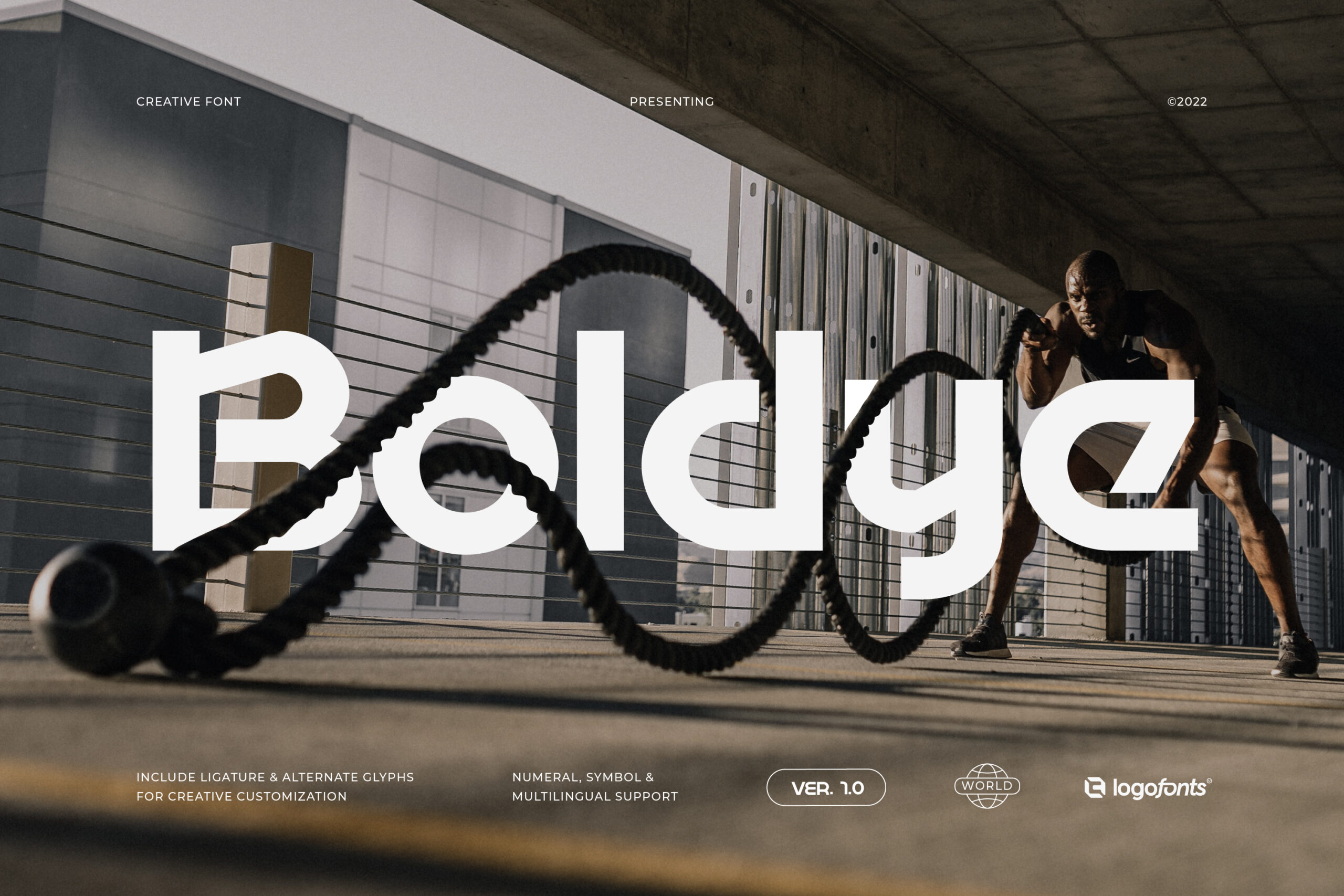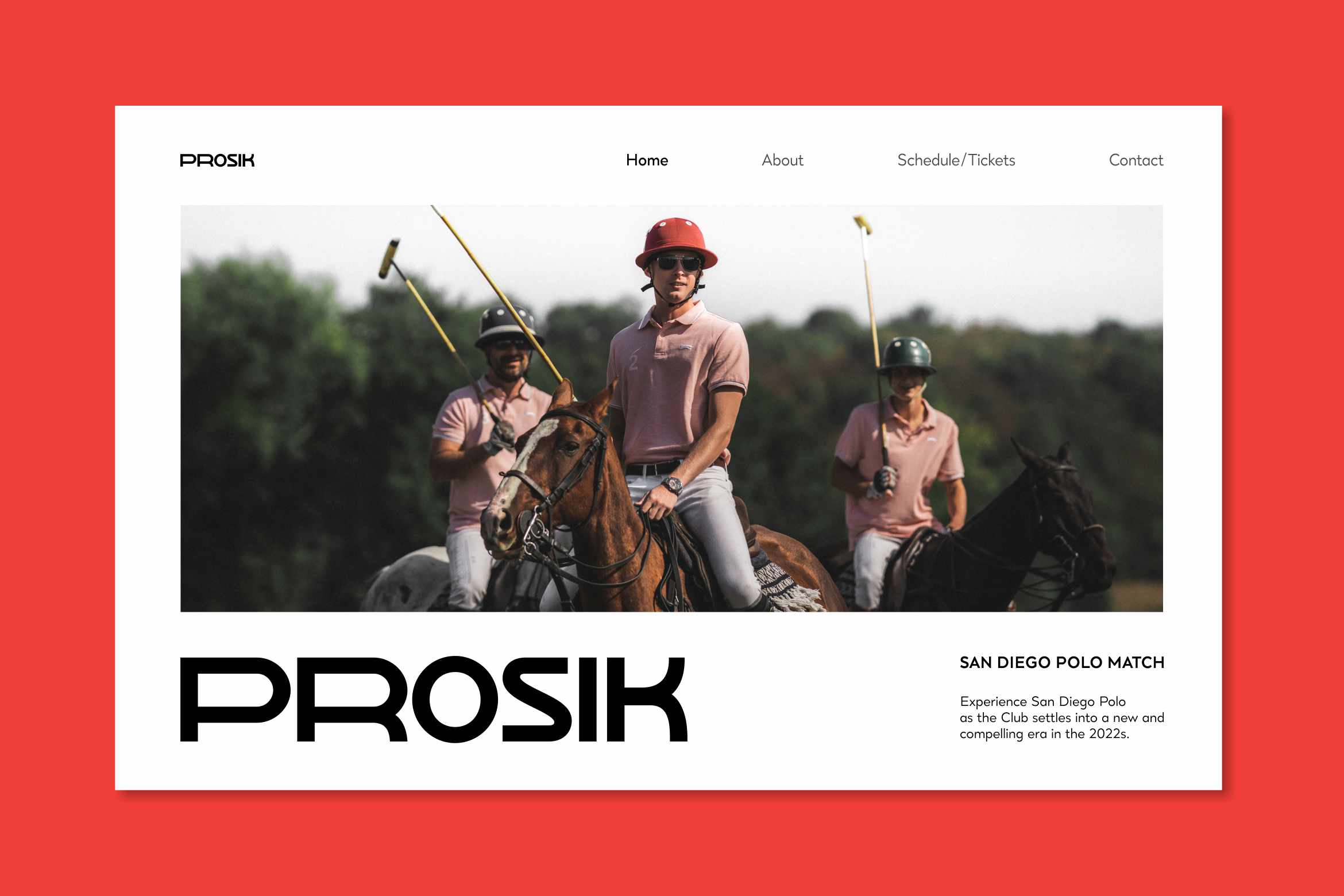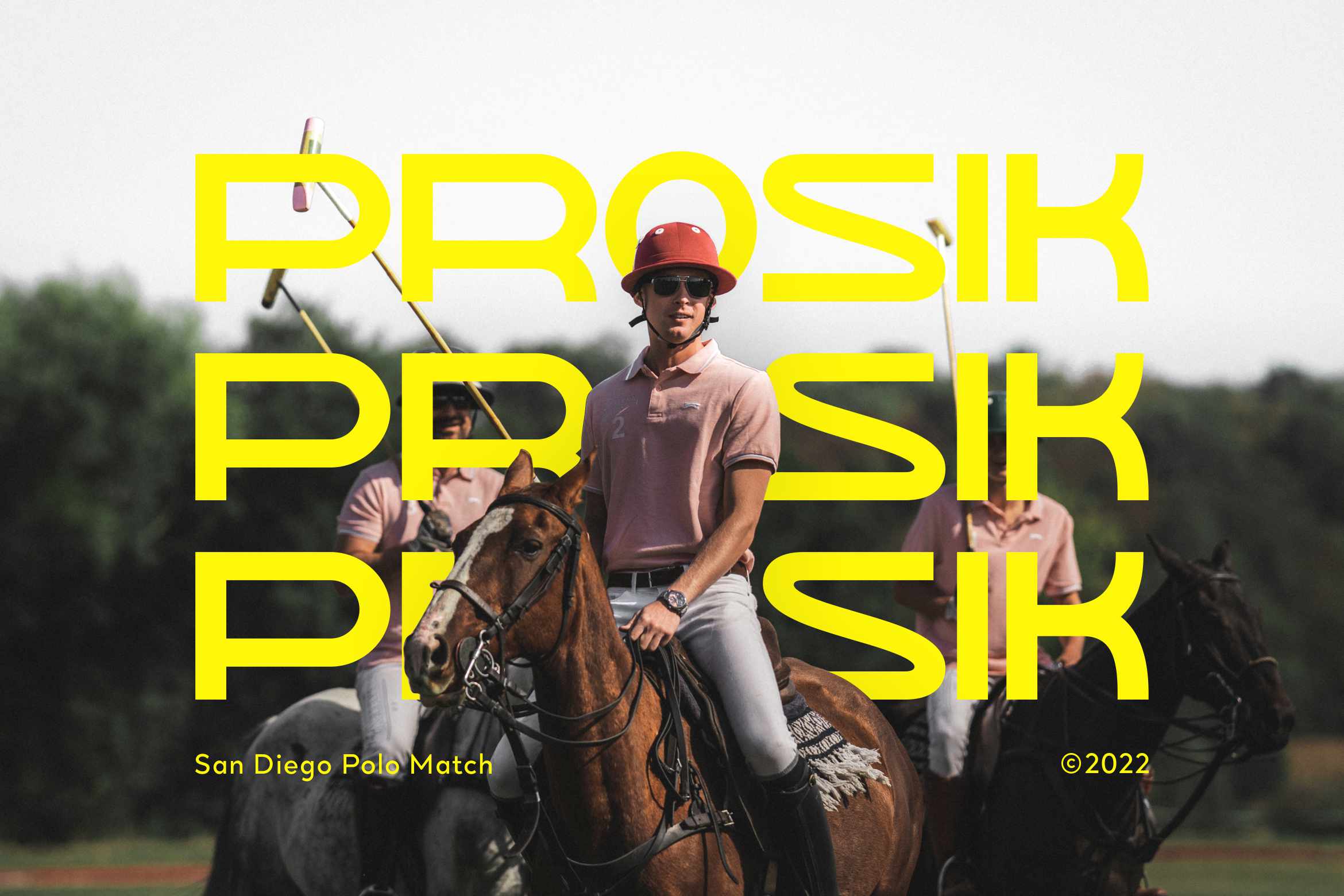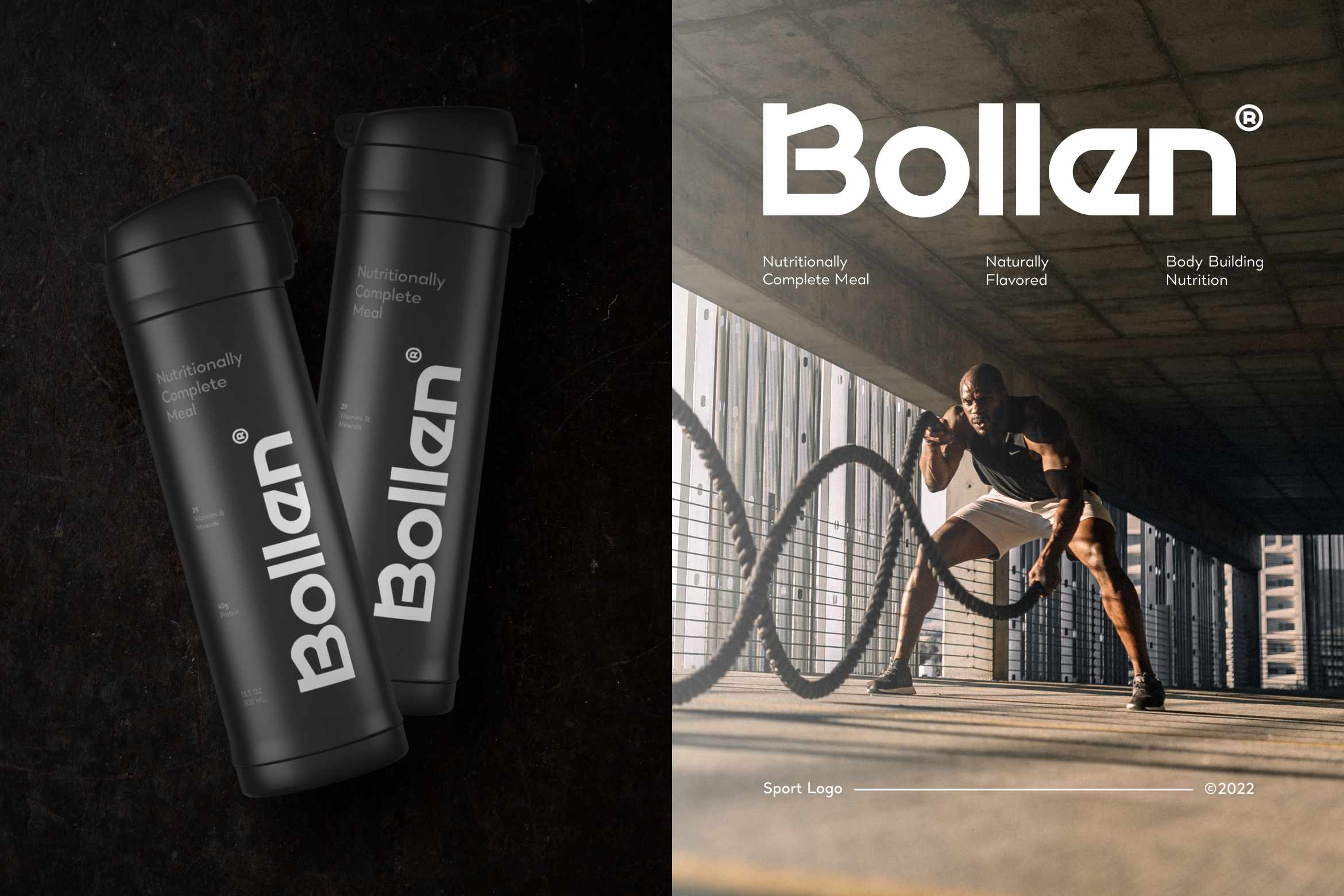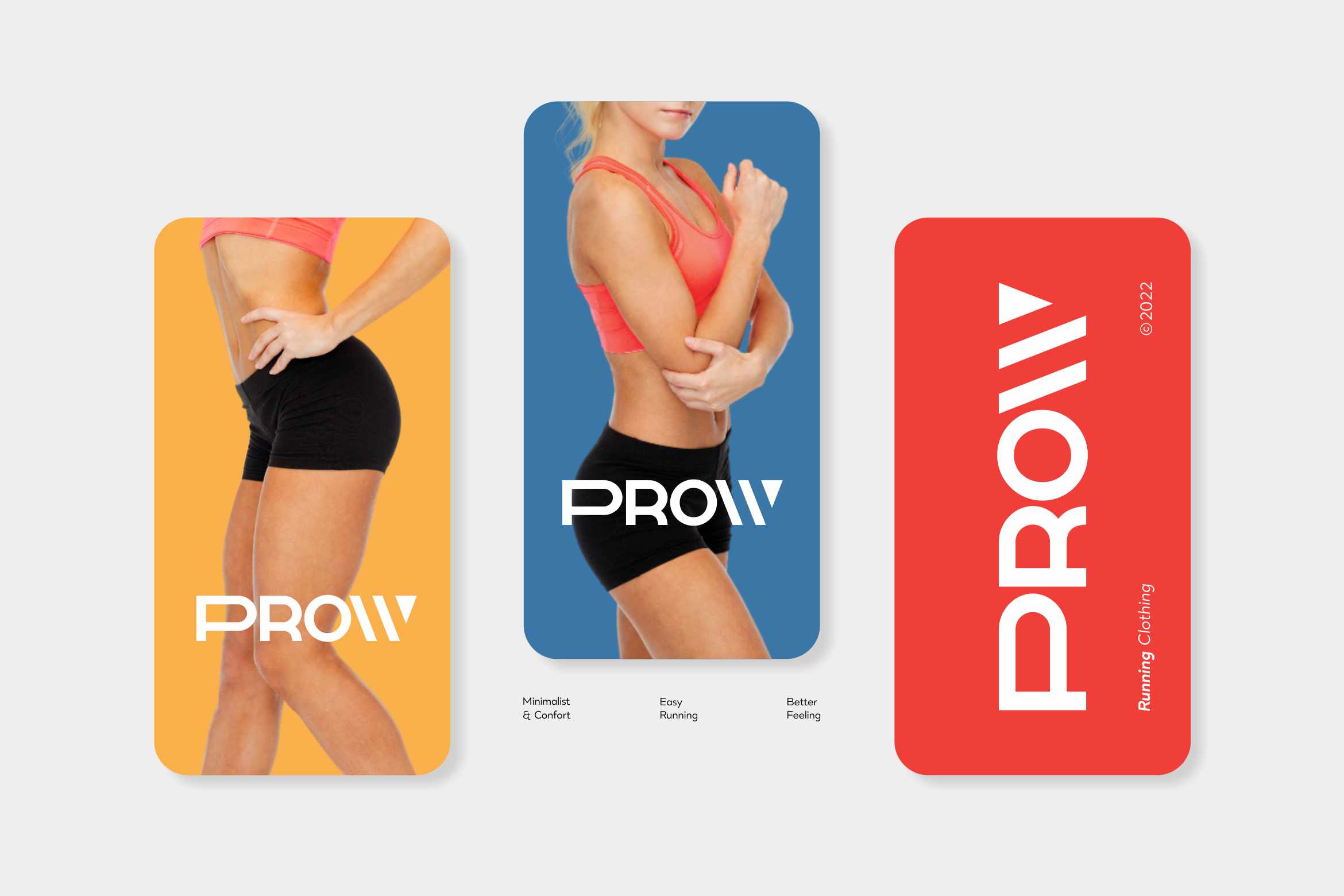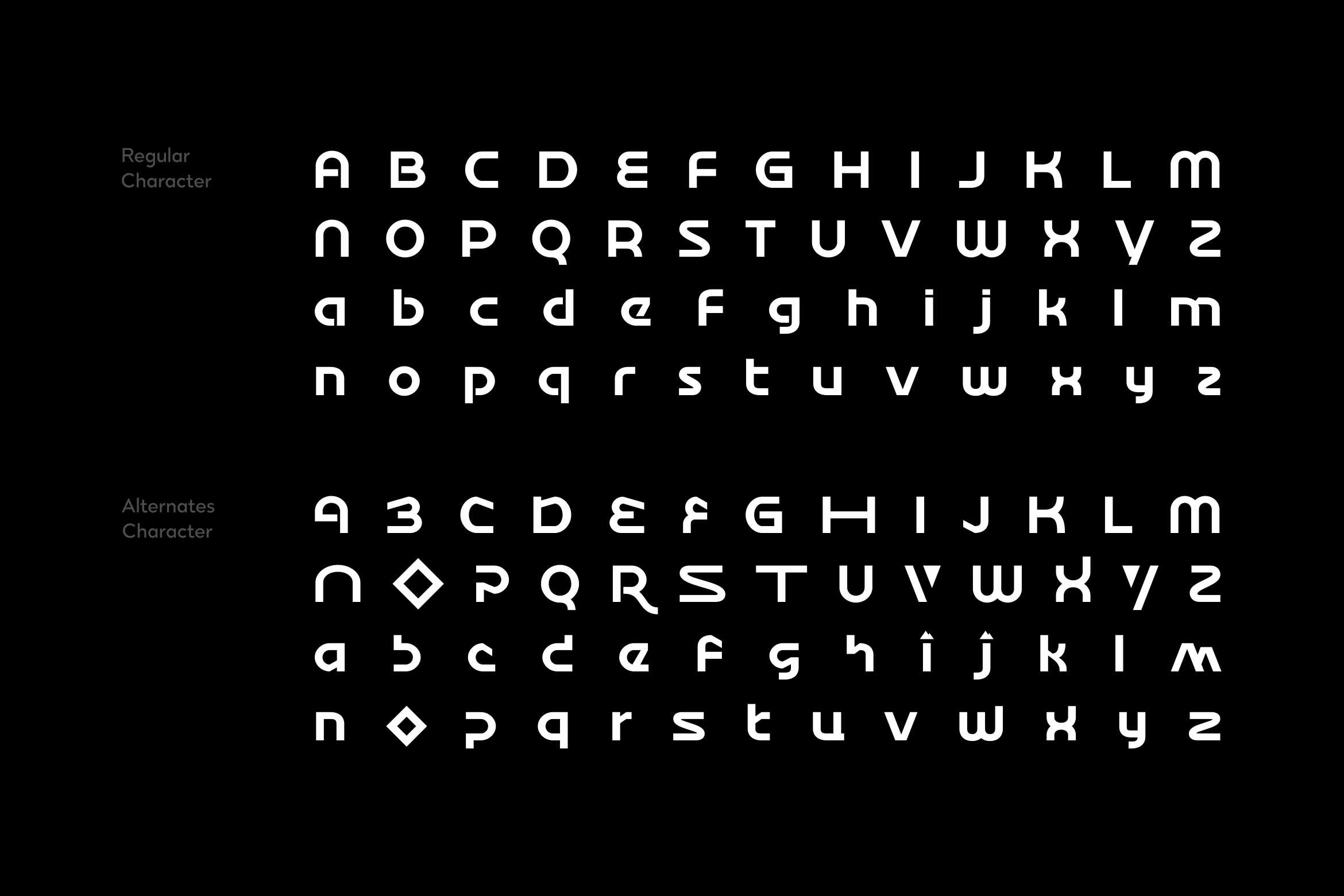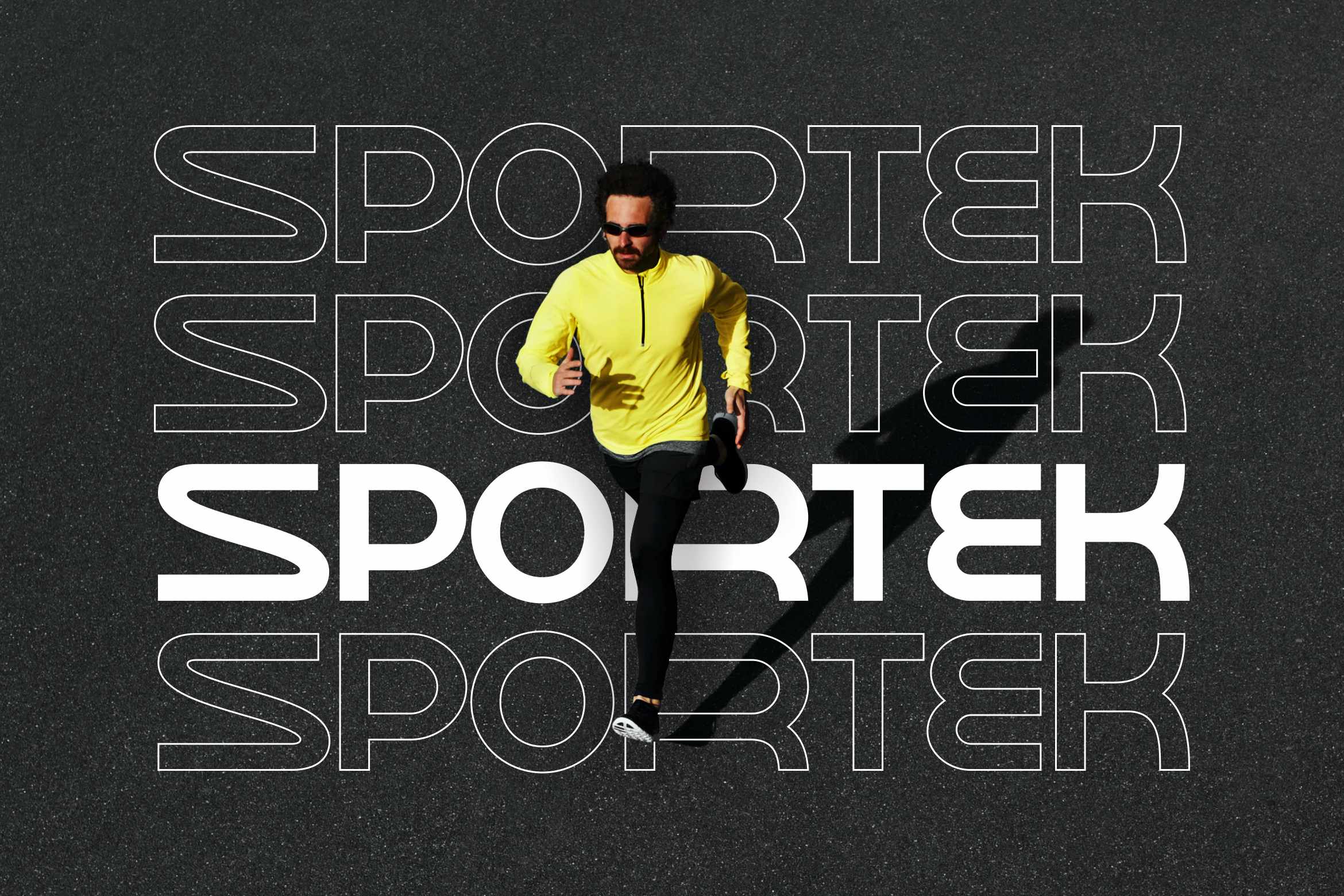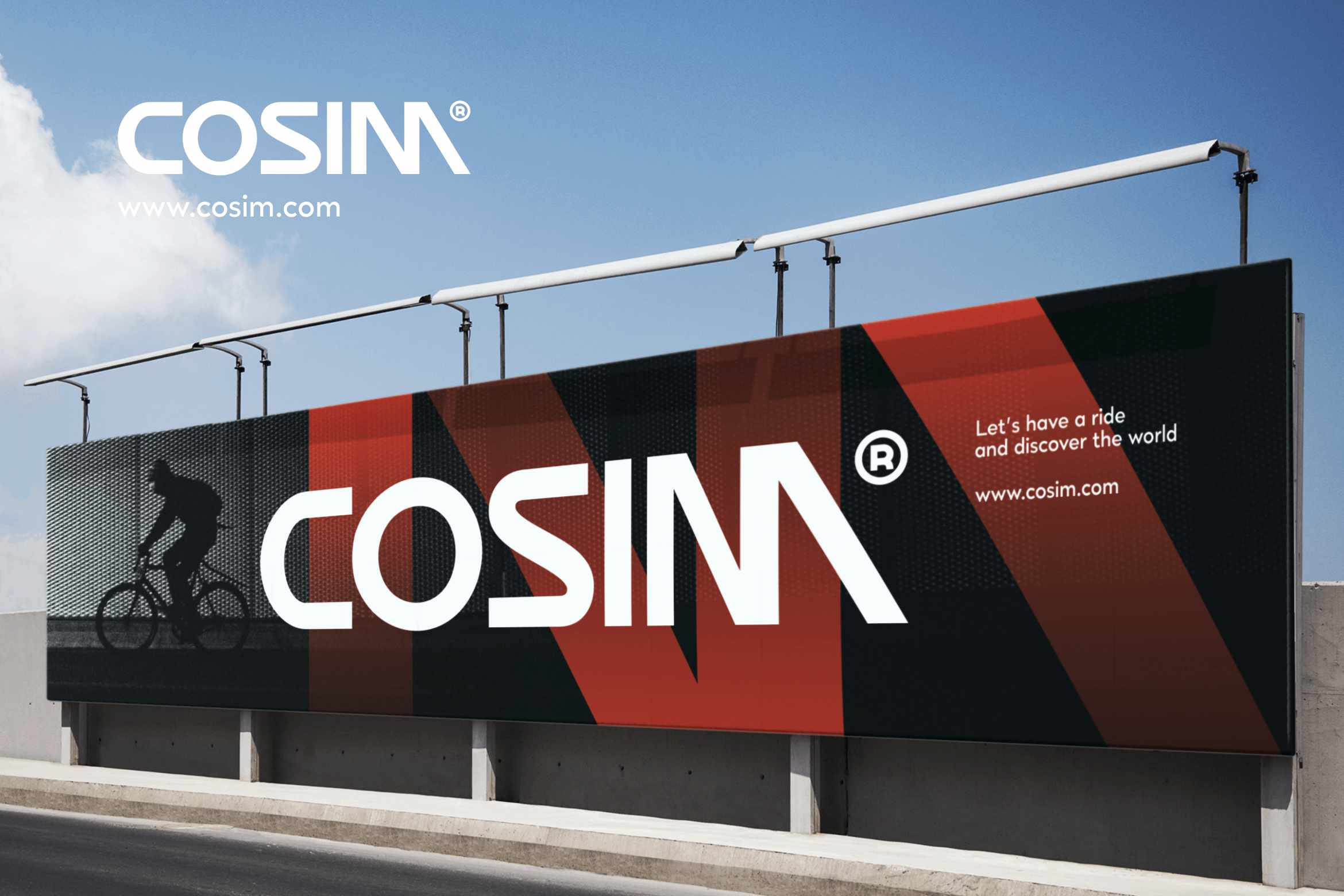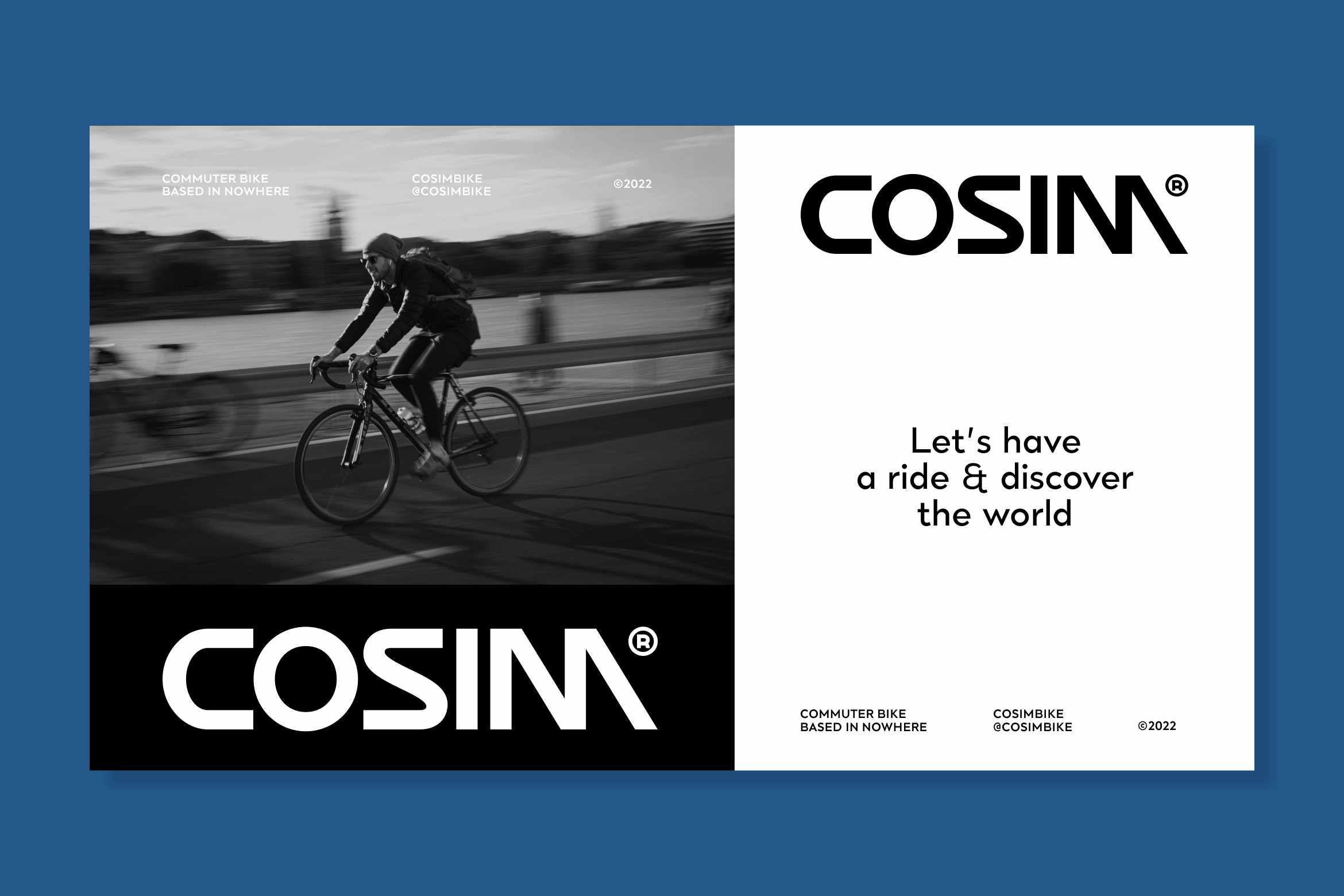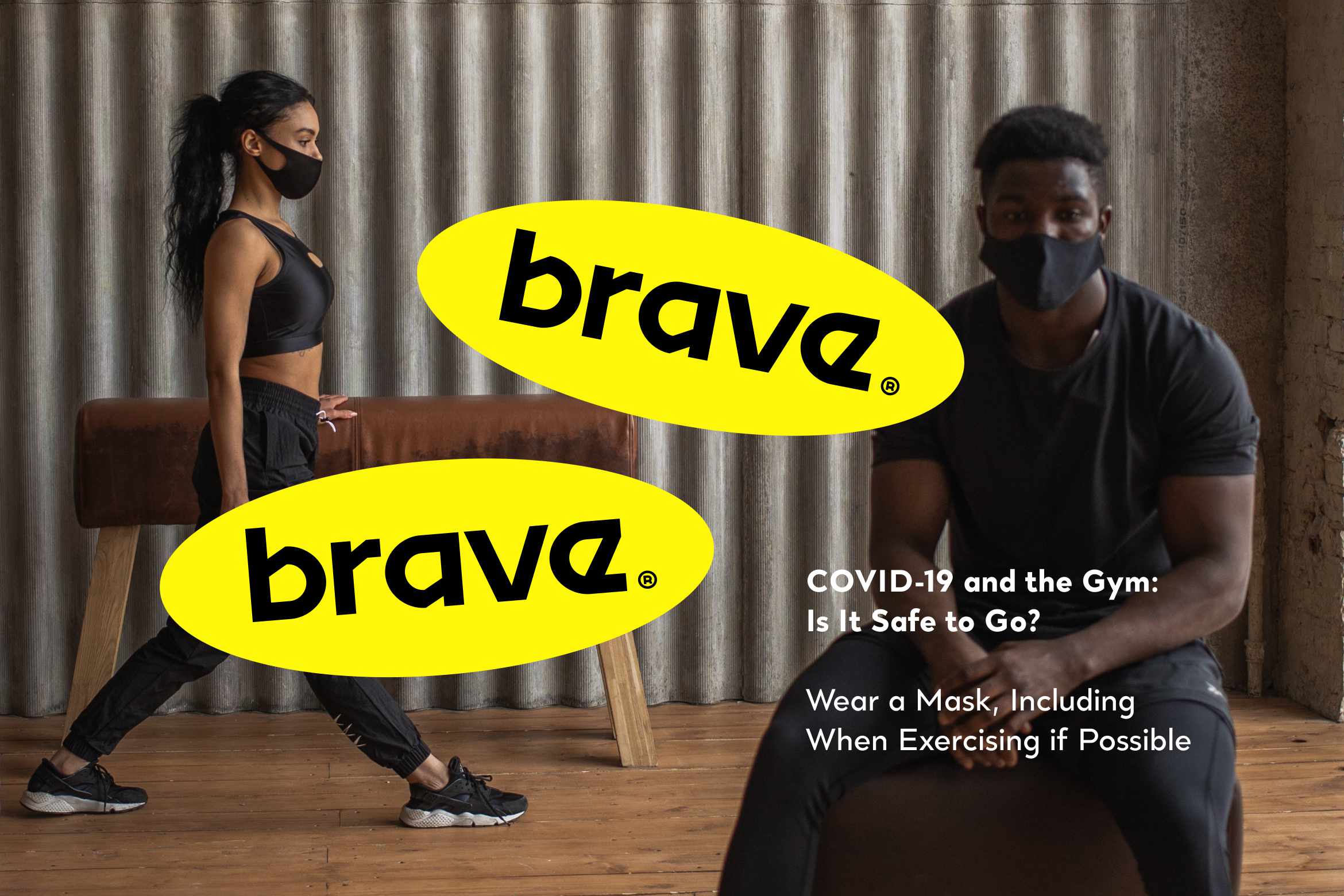
Boldye
Unleash your brand’s energy with this bold and modern display font, crafted for high-impact visuals. Its geometric structure and smooth curvature convey both athleticism and clarity—ideal for sports brands, tech gear, and dynamic advertising. The font’s tall x-height and distinctive alternates enhance readability while maintaining a strong visual personality across web, packaging, and billboards.
Whether layered over action photography or used in flat compositions, this typeface commands attention without overpowering the content. From running shoes to cycling campaigns, it thrives in fast-paced branding scenarios, making it a top choice for future-focused designers looking to deliver crisp, confident typography.